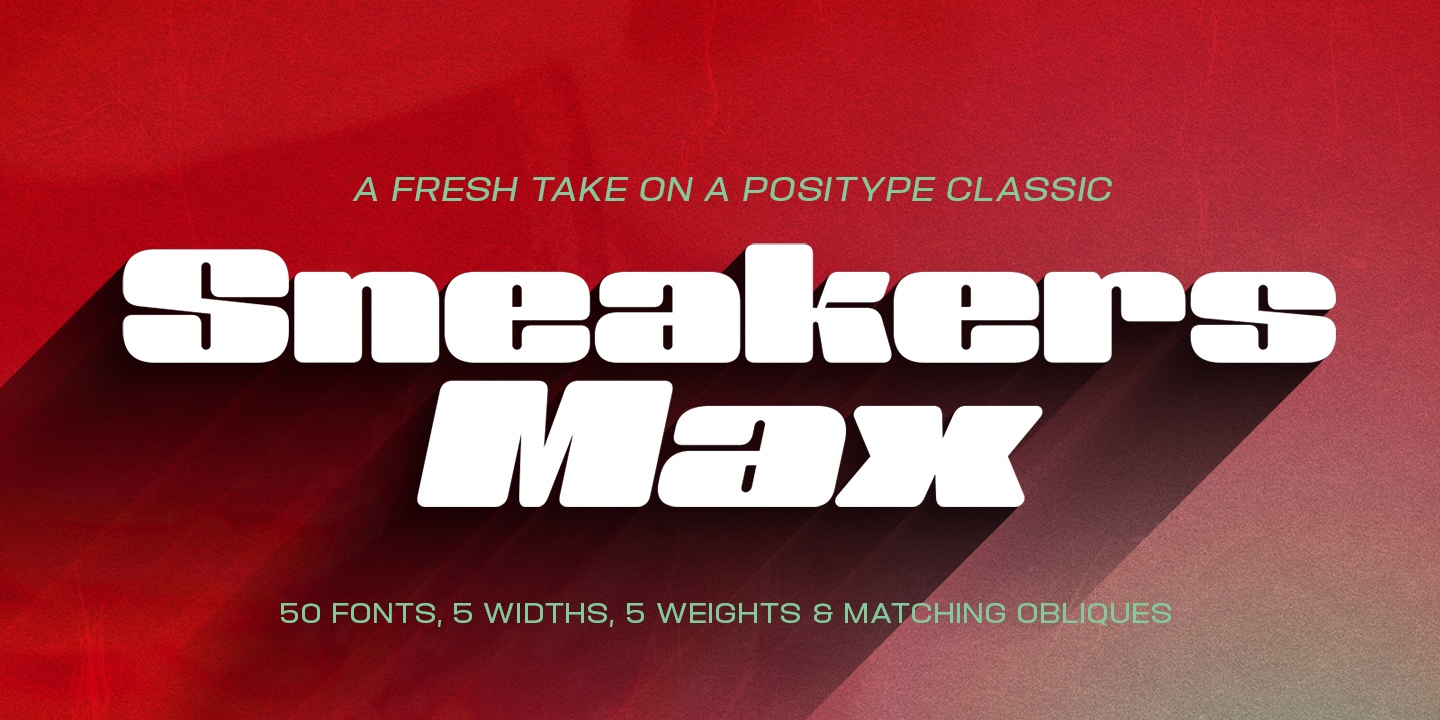
Sneakers Max Font
Sneakers Max Font is ideal for athletic footwear branding, sportswear company logos, sneaker store signage, athletic event graphics, urban fashion designs, fitness brand communications, street culture posters, and dynamic sports marketing materials.
This exciting Sneakers Max Font energizes audiences with its athletic dynamism and sporty character that captures the essence of high-performance footwear and competitive athletic culture. The font's energetic personality and sports-inspired design make it an exceptional choice for projects requiring athletic authenticity, competitive spirit, and sneaker culture credibility that resonates with athletes, fitness enthusiasts, and sneaker collectors worldwide.
The Sneakers Max Font family includes multiple athletic variations such as Regular, Bold, Light, Speed, Performance, and Championship versions, providing designers with comprehensive options for creating dynamic brand communications and athletically inspired typographic compositions with authentic sneaker culture appeal.
Maximize athletic typography with Sneakers Max Font Free Download - a dynamically designed typeface that embodies the speed, performance, and style of premium athletic footwear culture. This versatile font combines sports authenticity with contemporary functionality, making it perfect for brands and projects that need to communicate athletic excellence, competitive performance, and authentic sneaker lifestyle experiences.
The athletic character of Sneakers Max Font makes it particularly effective for footwear brands, sporting goods companies, fitness centers, and athletic lifestyle businesses that need to convey performance, innovation, and competitive edge. Its sporty styling appeals to athletes and sneaker enthusiasts who appreciate high-performance gear and authentic athletic culture.
Sports marketing professionals choose Sneakers Max Font for its authentic athletic atmosphere and exceptional visual impact across various sporting applications. The font maintains its energetic character from small product labels to large stadium displays, ensuring consistent brand dynamism and athletic appeal throughout all sports-related communications.
The distinctive personality of Sneakers Max Font creates immediate emotional connections through powerful associations with athletic achievement, competitive performance, and sneaker culture lifestyle. This makes it invaluable for brands seeking to leverage sports authenticity and athletic passion for marketing campaigns and performance-focused brand positioning strategies.
Athletic lifestyle brands utilize Sneakers Max Font to establish credible identities that communicate performance excellence, competitive spirit, and authentic sneaker culture in dynamic sports markets. The typeface's athletic appeal helps organizations differentiate themselves while attracting fitness enthusiasts who value high-performance products, athletic innovation, and genuine sports culture experiences in their active lifestyle choices.